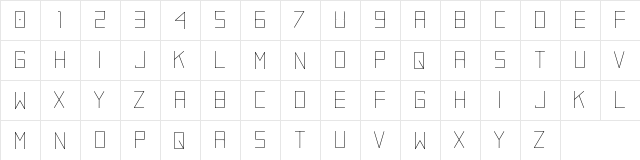
Kacugak - demo version Regular
| Foundry | Ciusan |
| Designer | Dannie Herdyawan |
Design Context for Kacugak - demo version Typeface
Kacugak - demo version takes a measured approach to typography — its balanced proportions and neutral character make it a reliable workhorse for both digital and print work.